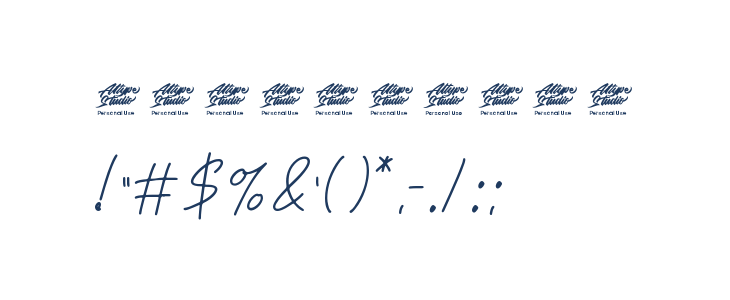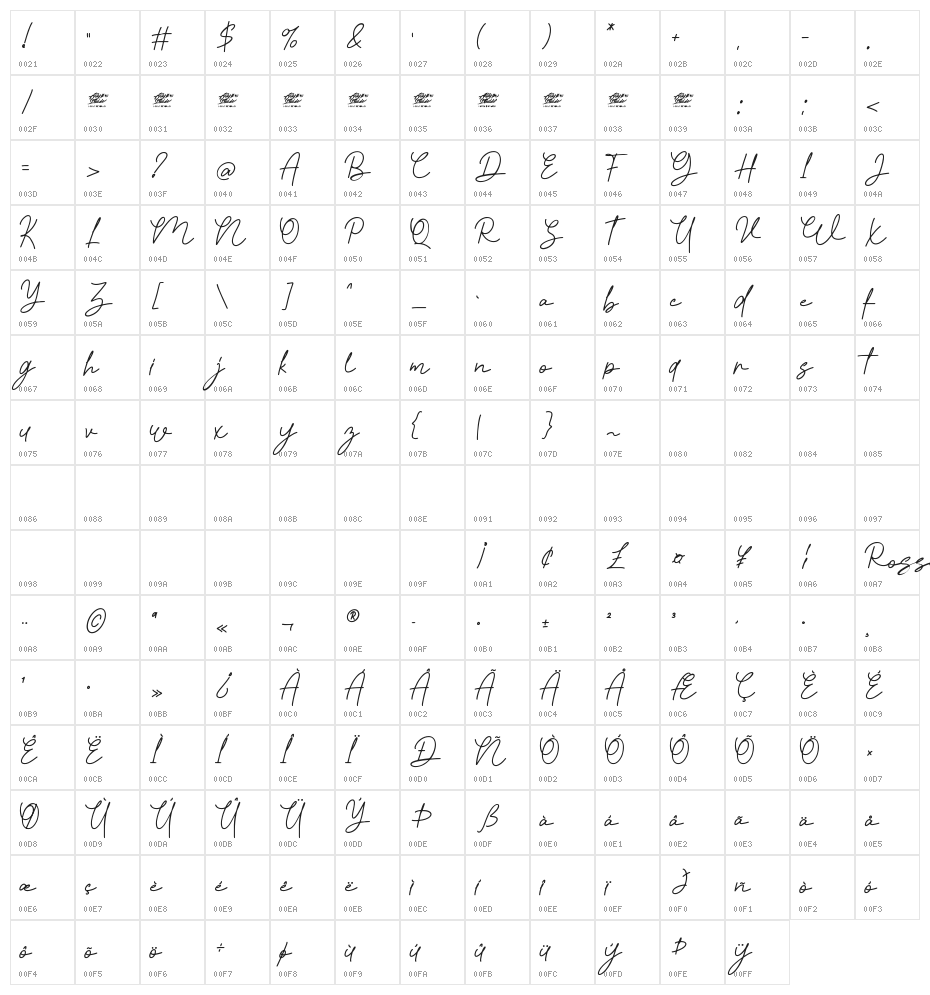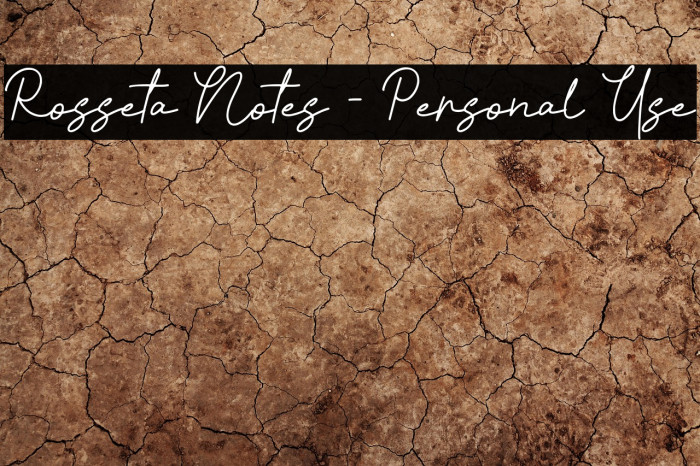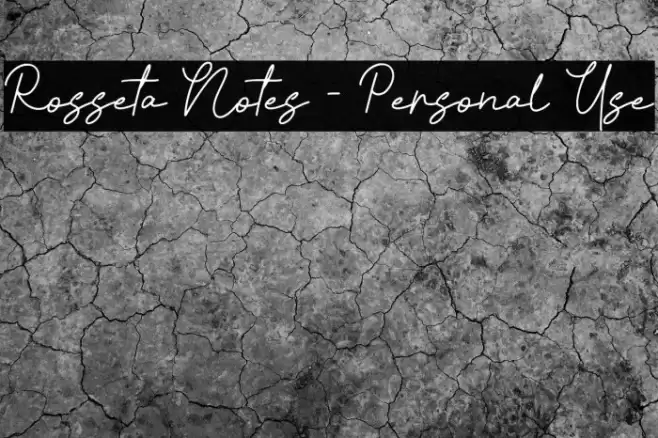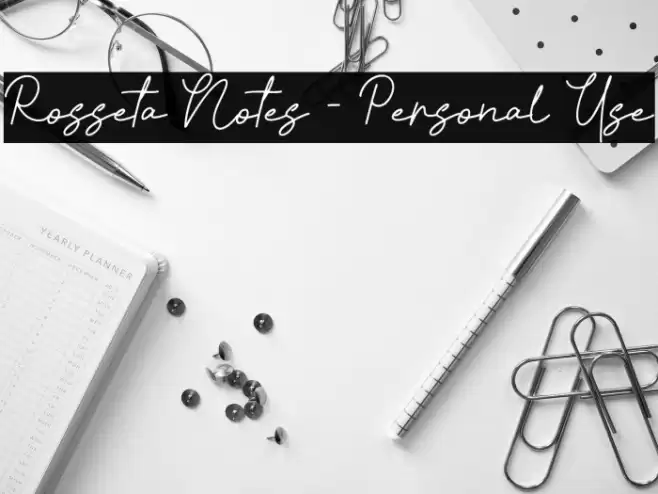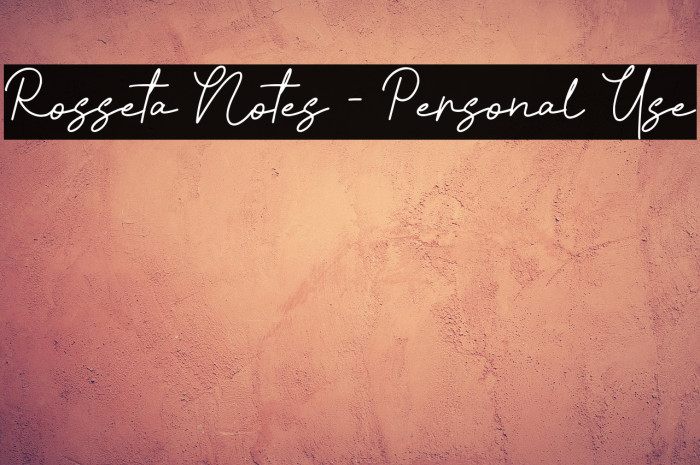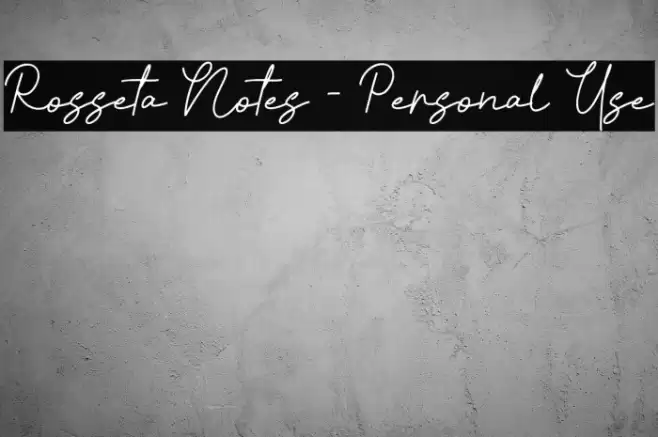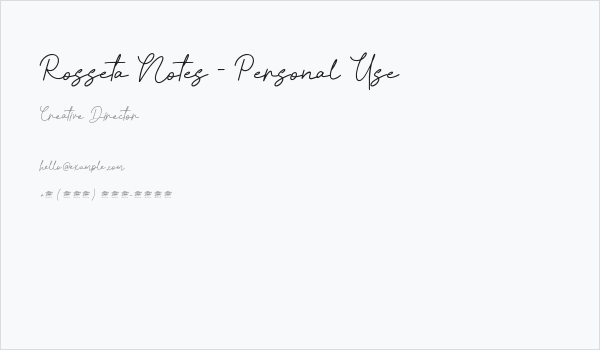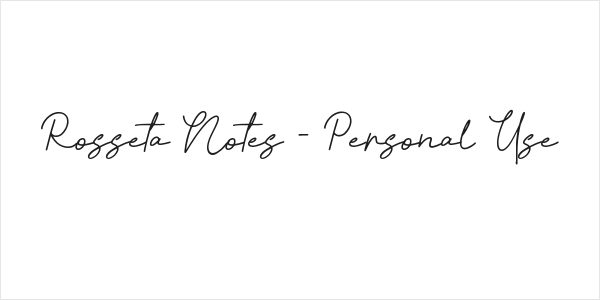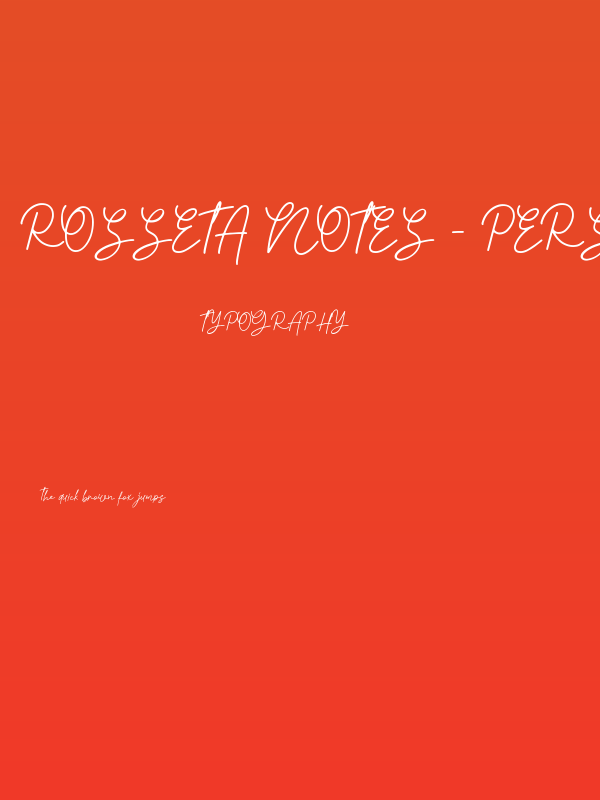
Rosseta Notes - Personal Use Font
Rosseta Notes - Personal Use Description
This font features a flowing, cursive script style that mimics elegant handwriting. The letters are connected, creating a seamless and fluid appearance. The strokes are smooth and slightly varied in thickness, adding a touch of sophistication and charm. The uppercase letters are tall and graceful, while the lowercase letters maintain a consistent flow, enhancing readability. The special characters blend harmoniously with the alphabet, maintaining the overall aesthetic. This font exudes a personal and artistic flair, making it suitable for creative and expressive projects.
Use CaseLogos, Invitations, Personal notes
Proposed ProjectsIdeal for wedding invitations, personal branding, greeting cards, and artistic projects.